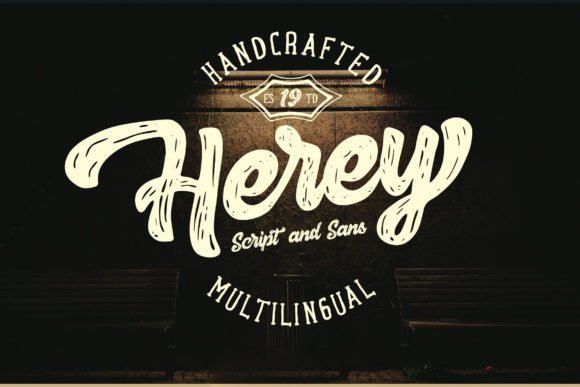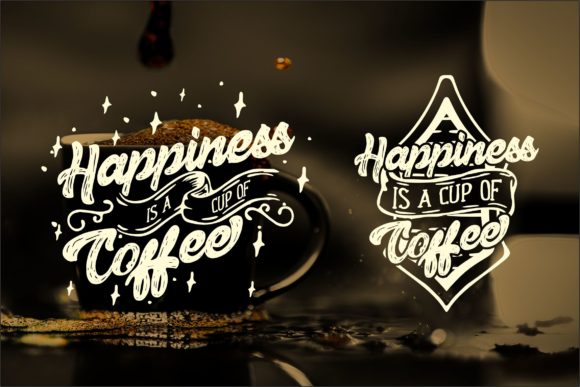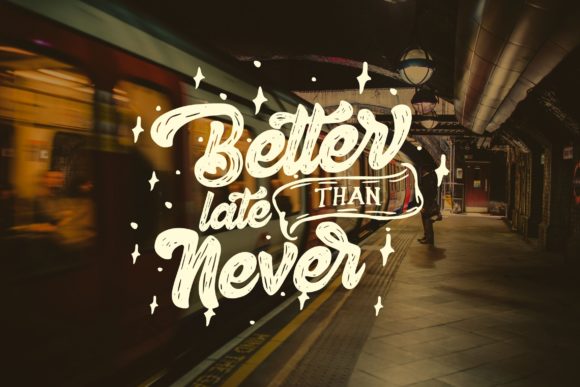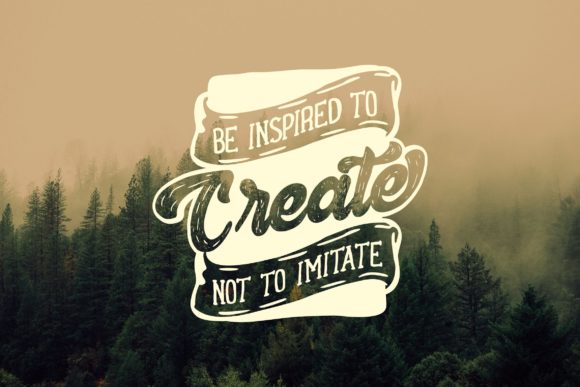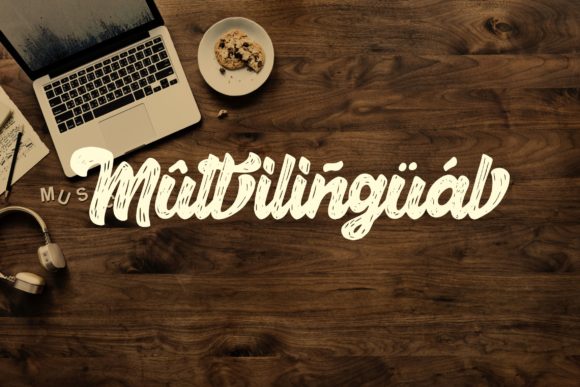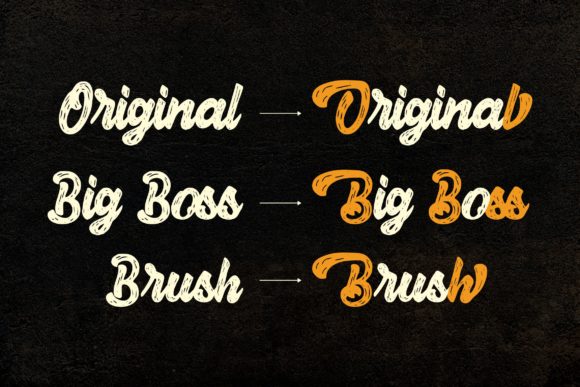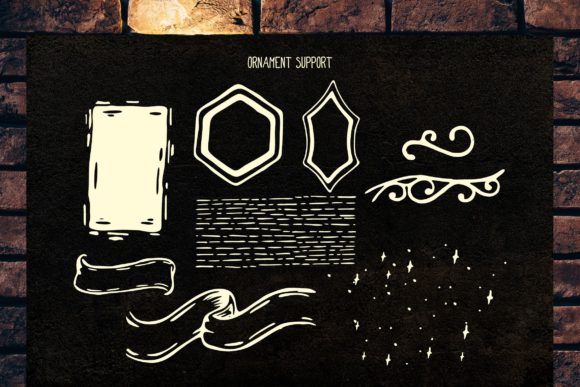
The Perfect Pair: Unlocking the Power of the Herey Duo Font
Remember the moment when you stumbled upon that perfect combination of colors, textures, and typography that made your design truly pop? It’s a feeling every designer knows and craves. For those seeking that elusive magic, the Herey Duo Font is a game-changer. This striking handwritten font duo is more than just a tool – it’s a creative catalyst that can elevate any design to new heights.
Whether you’re crafting a logo, poster, or header, the Herey Duo Font is the perfect companion. Its unique, handwritten style brings a touch of personality and whimsy to any project. As a valuable addition to any designer’s toolkit, the Herey Duo Font is sure to become a trusted favorite. With its versatility and charm, it’s no wonder designers are falling in love with this dynamic font duo.
Herey Duo Font Key Features
- Font Style: The font has a unique, modern design with a blend of geometric and organic elements, making it suitable for various design applications.
Designer Review: Herey Duo Font
After spending some time working with the Herey Duo Font, I have to say it’s been a mixed bag for me. ✨ On the plus side, the font has a unique and modern aesthetic that’s perfect for digital design. The bold and light weights are well-balanced, making it easy to read and visually appealing.
One of the things that really stood out to me is the character set. Herey Duo Font has a wide range of languages supported, including some of the more exotic ones, making it a great choice for global brands or companies that cater to diverse audiences. Additionally, the font’s versatility is a major plus – it works well in both headlines and body text.
- ⚠️ Limited OpenType features, which can make it a bit tricky to work with in terms of advanced typography.
- ⚠️ Some users may find the font a bit too bold or heavy-handed in certain contexts, so it’s worth using it judiciously.
Overall, I think the Herey Duo Font is a solid choice for digital designers, but it’s not without its limitations. With a bit of finesse and creative direction, it can be a real showstopper. However, for more complex typography projects, you may want to consider other options with more advanced features.
Tips for Getting the Most Out of Herey Duo
To get the most out of the Herey Duo font, try the following:
- Use it for titles and headings to add a touch of elegance and sophistication.
- Pair it with a clean and simple background to let the font shine.
The Herey Duo font is ideal for:
The Herey Duo Font is a high-quality font that is designed for use in a wide range of font sizes. However, as with any font, the legibility of the font may decrease at very small font sizes. For optimal results, we recommend using the font at a minimum size of 12 points. If you need to use the font in very small sizes, we recommend experimenting with different font sizes and styles to find the best balance between legibility and aesthetics.